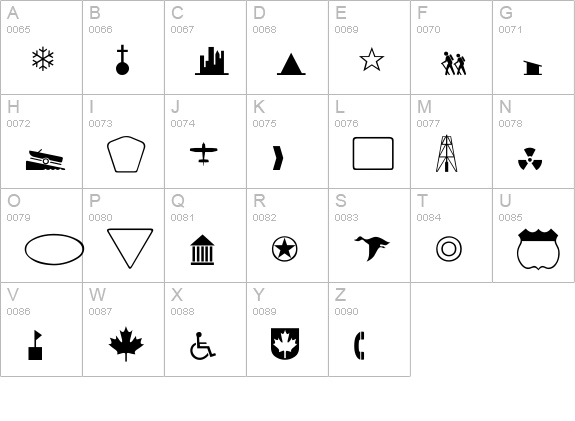
Cartographer Font Details
Cartographer font is a beautifully crafted typeface that exudes elegance and sophistication. Its intricate details and clean lines make it perfect for a wide range of design projects, from branding to editorial layouts. The unique blend of classic and modern elements gives Cartographer font a timeless appeal that will elevate any design it is used in. What sets Cartographer font apart is that it is not only visually stunning, but it is also completely free to download. That's right - you can access this premium font at no cost on FontsMarket.com. Whether you are a professional designer looking to add a new font to your collection or a hobbyist looking to enhance your projects, Cartographer font is a fantastic choice. Download it today and see the difference it can make in your designs.